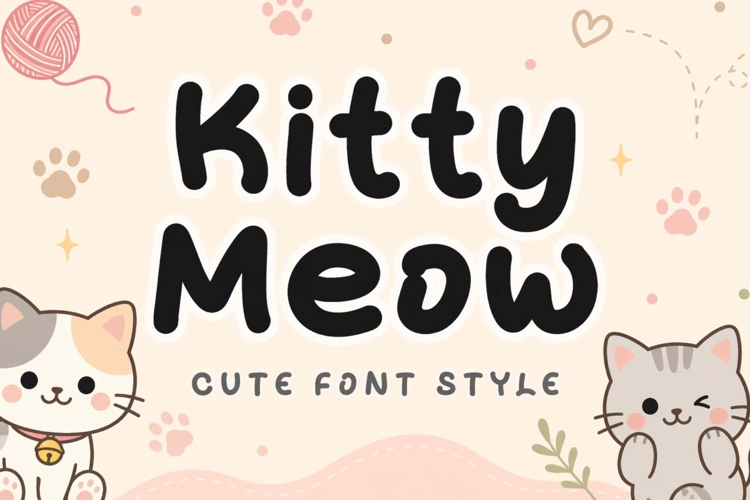
“Kitty Meow” is a cute and playful display font. This font is equipped with uppercase, lowercase, numerals, punctuation, and multilingual support. Very suitable for posters, logos, children's toys, banners, stickers, branding, animals, book covers, film titles, cats, comics, cartoons, summer, spring, Easter, Christmas, back to school, holidays and others.